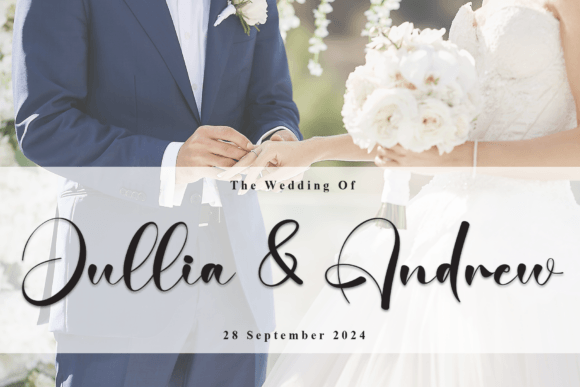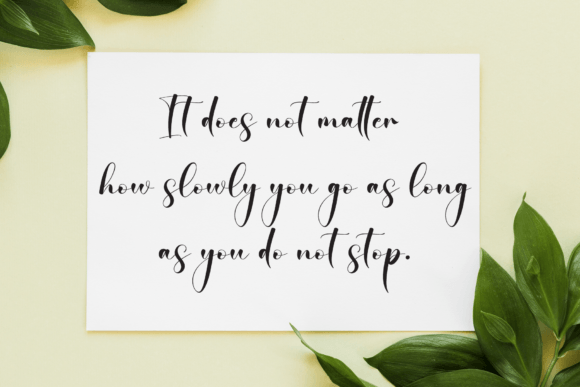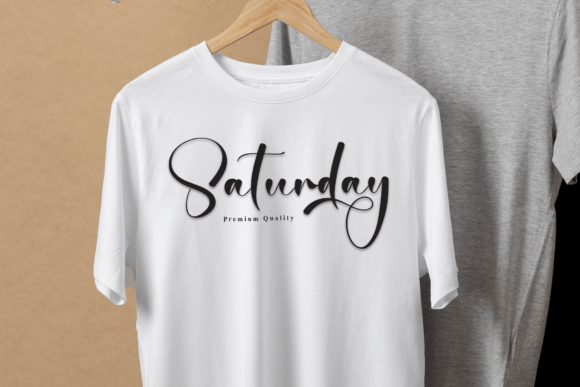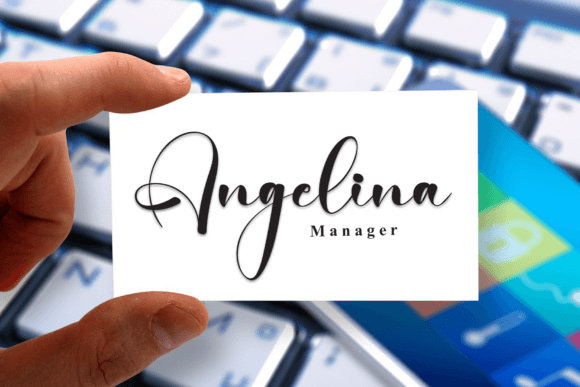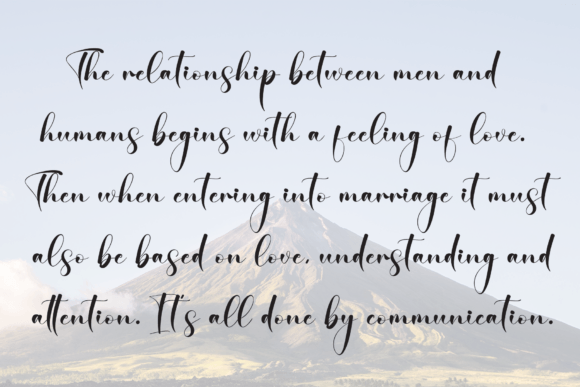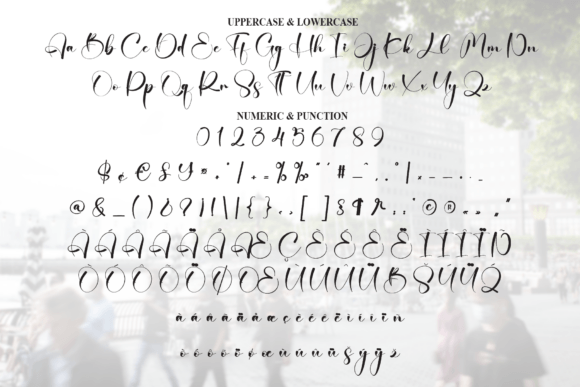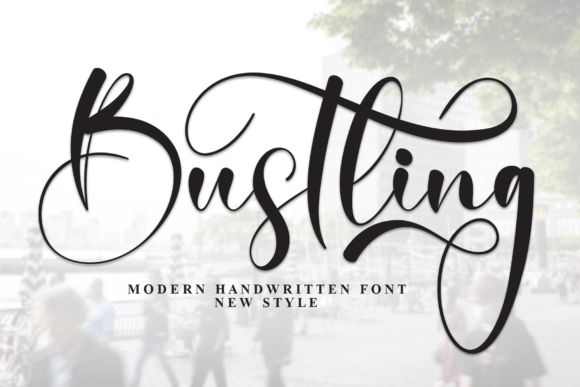
Bustling Font: Adding Energy and Playfulness to Your Designs
In the world of typography, fonts play a crucial role in conveying the tone and personality of a design. If you’re looking for a font that exudes energy, creativity, and playfulness, look no further than Bustling Font. This handwritten font combines thin and bold lines to create a unique and lively style that’s perfect for creative projects.
The Unique Characteristics of Bustling Font
Bustling Font is a carefully crafted handwritten font that blends contrasting line widths to create a visually appealing effect. The mix of thin and bold lines gives the font a dynamic and energetic feel, making it ideal for designs that require a touch of playfulness and creativity. The font’s unique characteristics include:
• Handwritten style: Bustling Font has a genuine handwritten look that adds a personal touch to your designs.
• Contrasting line widths: The combination of thin and bold lines creates a visually appealing effect that adds energy and playfulness to your text.
• Unique and distinctive: The font’s mix of thickness gives it a one-of-a-kind look that makes your text stand out from the crowd.
Bustling Font is perfect for a wide range of creative projects, including:
• Branding and logos: The font’s unique style makes it ideal for creating memorable and distinctive brand identities.
• Posters and flyers: Bustling Font adds a touch of energy and playfulness to your promotional materials, making them more eye-catching and effective.
• Digital media: The font’s clear and legible design makes it perfect for use in digital media, such as social media graphics, blog posts, and website headers.
• Crafting and DIY projects: Bustling Font is a great choice for crafters and DIY enthusiasts looking to add a personal touch to their projects, such as handmade cards, gift tags, and scrapbooking.
Tips for Using Bustling Font Effectively
To get the most out of Bustling Font, here are some tips for using it effectively:
• Experiment with font sizes: Bustling Font looks great in a variety of font sizes, from large headings to smaller body text.
• Play with color: The font’s bold lines and contrasting thickness make it perfect for use with bright, bold colors.
• Mix and match: Combine Bustling Font with other fonts to create a unique and visually appealing typography style.
Bustling Font is a unique and energetic handwritten font that’s perfect for creative projects. Its mix of thin and bold lines gives it a playful and distinctive look that makes your text stand out. Whether you’re a designer, crafter, or DIY enthusiast, Bustling Font is a great choice for adding a touch of personality and creativity to your work. So why not give it a try and see the difference it can make in your designs?